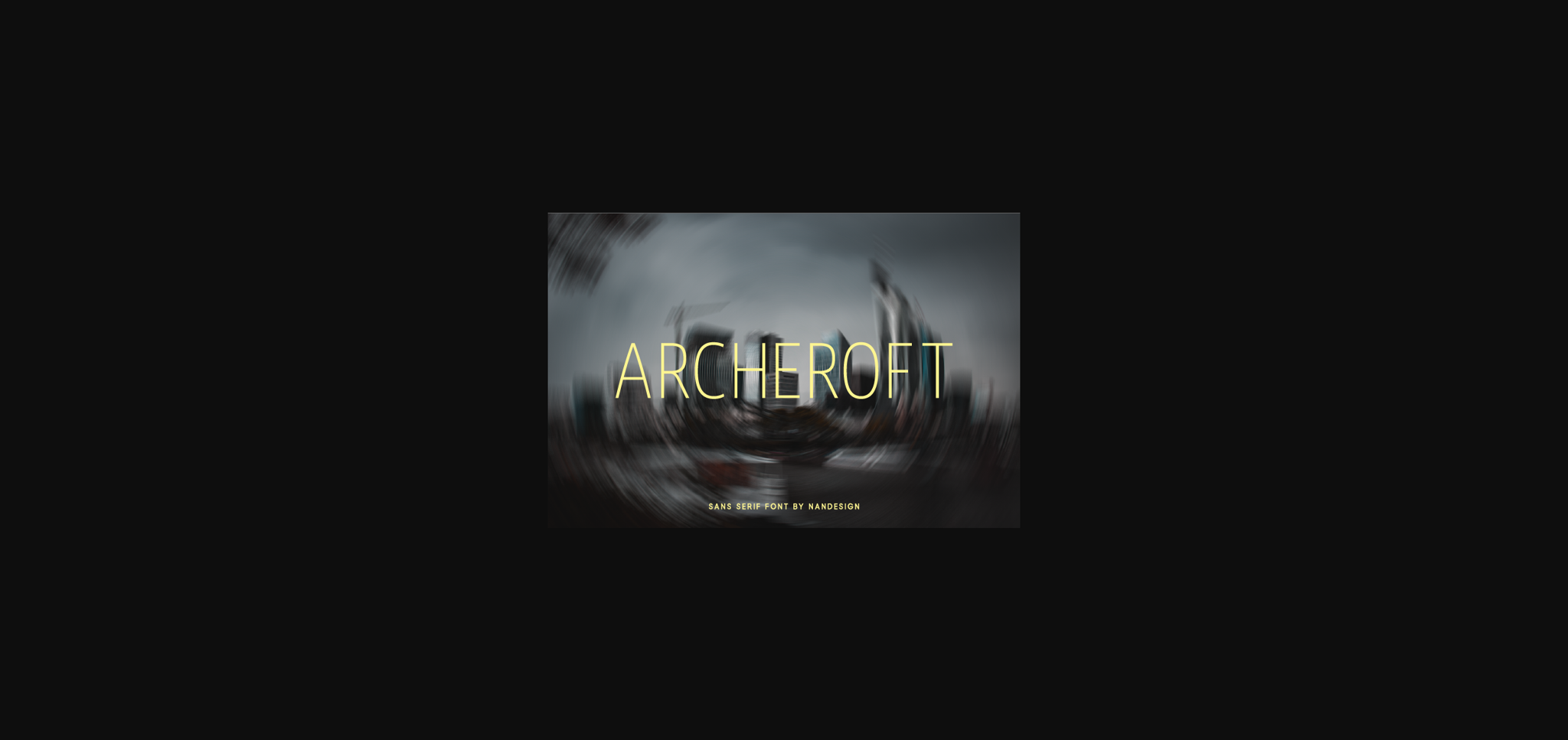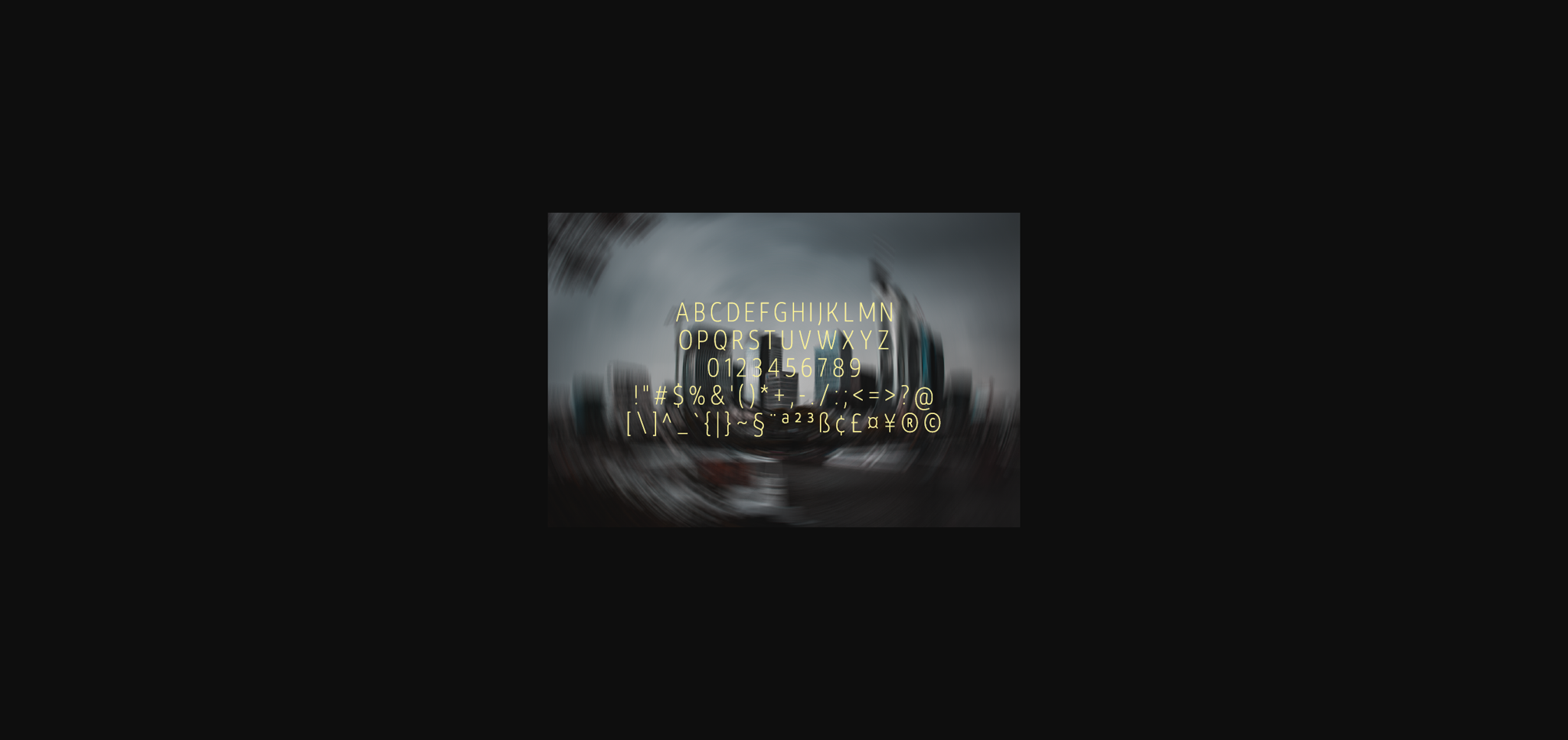
Archeroft Font
About Archeroft Font
Archeroft is inspired by classic typography and brings its own unique style to any design project. Whether it’s for web, print, moving images or anything else – Archeroft will look spectacular.